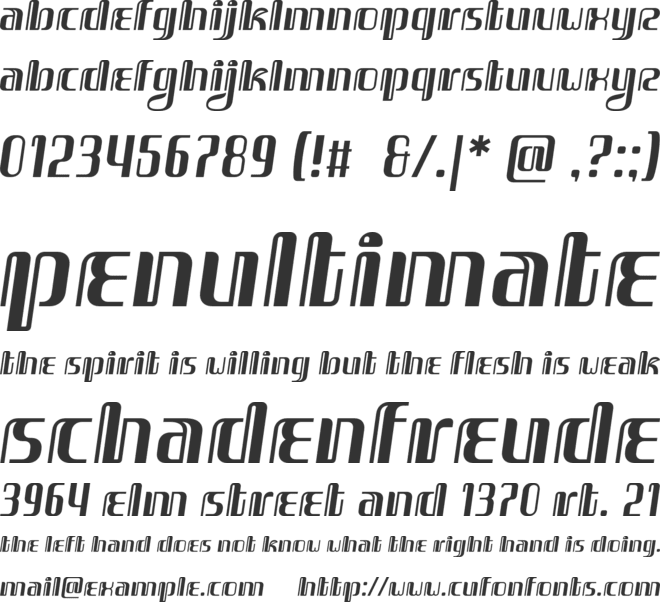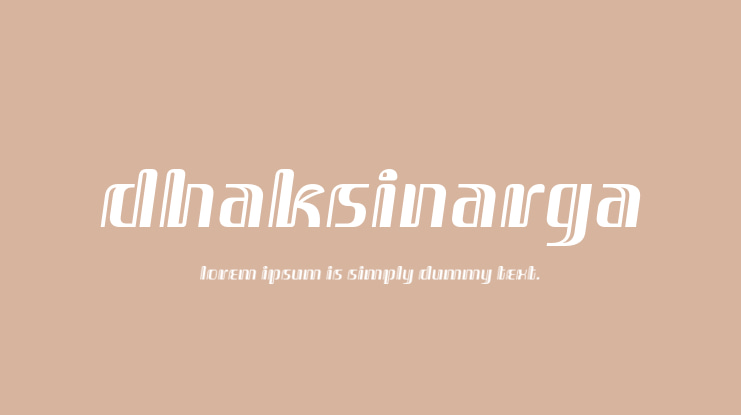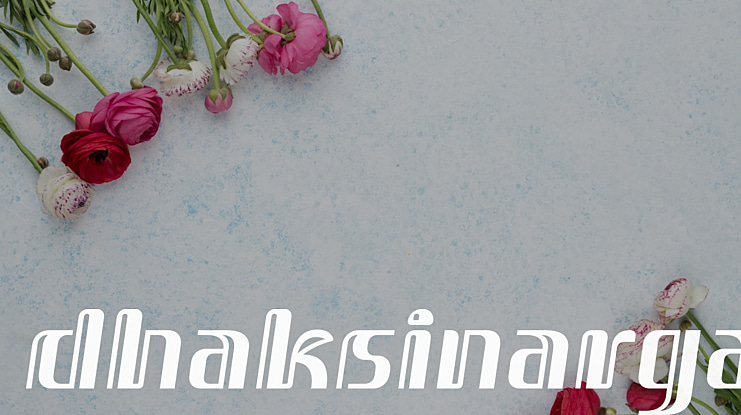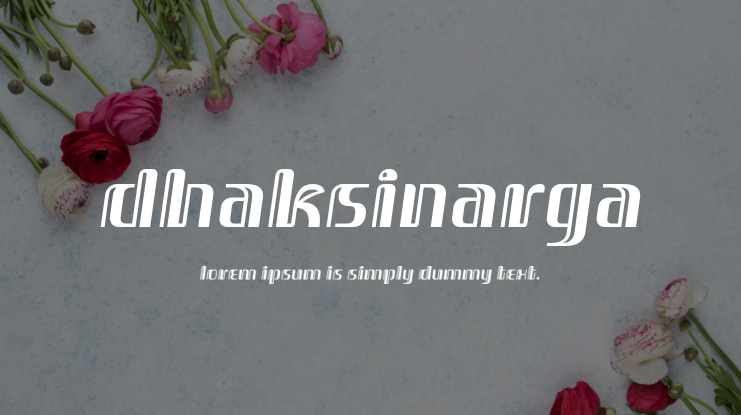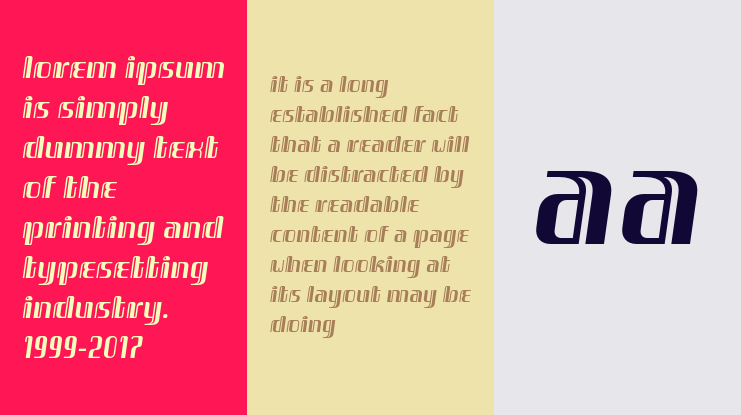
Dhaksinarga Font Family
Dhaksinarga is a brand new font inspired by Javanese script or Hanacaraka style. Javanese script is one of Indonesia’s traditional scripts developed in Java, Indonesia.
With some modifications but still characterizing Hancaraka style, Dhaksinarga has come to complement the existing hanacaraka style fonts. This font is available in two versions, regular version with separate letters and a joined version between letters, Dhaksinarga Thuk.
Several OpenType features are embedded so you can create more freely. Features include: alternative capital G, J and Y; alternative ‘a’; alternative numbers; some ligatures.